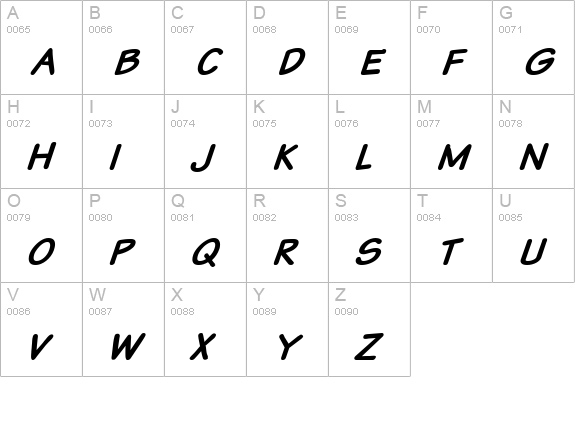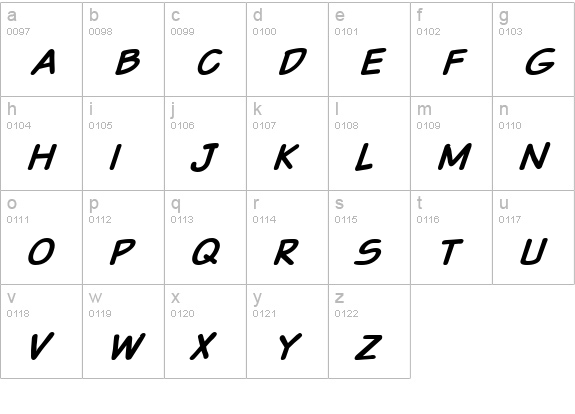
VTCSundaykomixcapsboldItalic Font Details
VTCSundaykomixcapsboldItalic is a uniquely captivating font that adds a touch of personality and style to any design project. Its bold and italicized characters exude a sense of confidence and modernity, making it the perfect choice for eye-catching headings, titles, and logos. This font's versatility allows it to seamlessly fit into various design themes, ranging from playful and whimsical to bold and impactful. Its distinctive uppercase letters are carefully crafted with a playful twist, adding a touch of fun and creativity to your designs. One of the greatest advantages of VTCSundaykomixcapsboldItalic is that it is freely available to download at FontsMarket.com. This means that designers and creatives alike can easily access and use this captivating font without any cost or limitations. Whether you're a professional designer or a hobbyist, this font offers you the opportunity to elevate your projects without breaking the bank. With VTCSundaykomixcapsboldItalic, you can effortlessly create visually appealing designs that make a lasting impression. Its bold and italicized nature ensures that your text stands out, effectively grabbing the attention of viewers and conveying your message with impact. So why settle for ordinary fonts when you can have VTCSundaykomixcapsboldItalic? Download it for free at FontsMarket.com and unlock a world of design possibilities, allowing your creativity to soar to new heights.